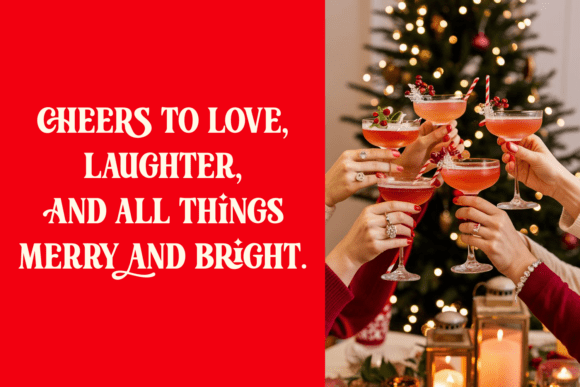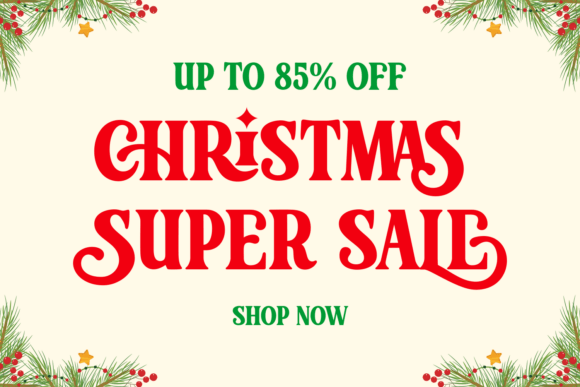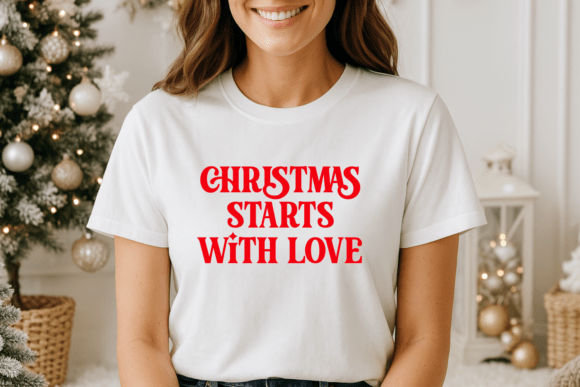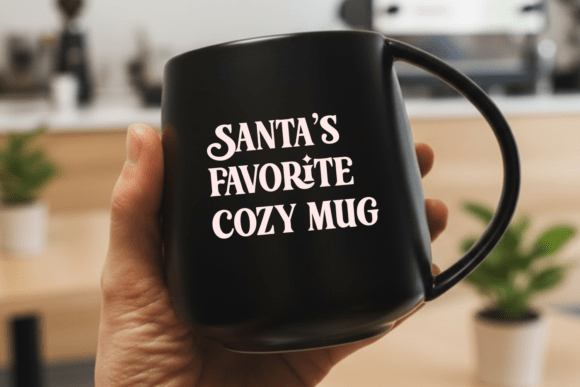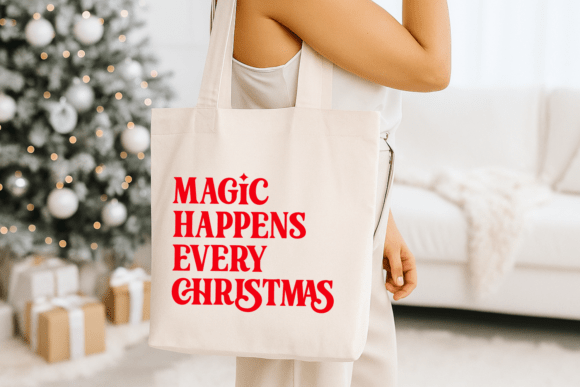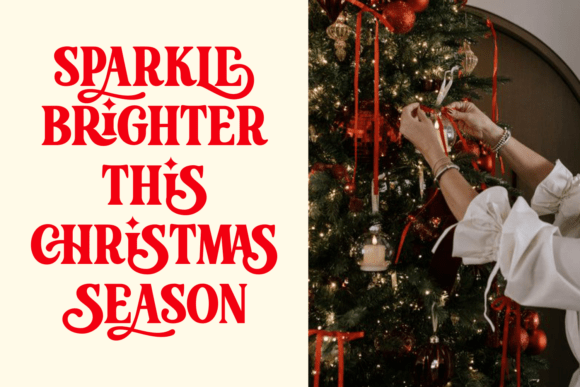
Introducing Christmas Royale Font: Elevate Your Holiday Designs with Elegance and Charm
Are you looking for the perfect font to add a touch of festive elegance to your holiday designs? Look no further than Christmas Royale, an exquisite serif display font that embodies the warmth, charm, and magic of the holiday season. Inspired by classic Christmas lettering, this font seamlessly blends bold retro curves with refined serif details, creating a timeless yet playful look that’s sure to captivate your audience.
A Font that Exudes Holiday Cheer
Christmas Royale is more than just a font – it’s an experience. Its flowing swashes and decorative letterforms add a luxurious seasonal flair, making it perfect for capturing the joyful spirit of the holidays. Whether you’re designing Christmas cards, invitations, branding materials, gift tags, signage, social media posts, or packaging, this font is sure to bring a touch of sophistication and coziness to your creations.
Key Features of Christmas Royale Font
• Elegant Serif Design: Christmas Royale boasts a refined serif design that exudes elegance and sophistication, perfect for creating high-end holiday designs.
• Bold Retro Curves: The font’s bold retro curves add a playful touch, making it ideal for designs that require a dash of nostalgia and whimsy.
• Flowing Swashes and Decorative Letterforms: The font’s flowing swashes and decorative letterforms add a luxurious seasonal flair, perfect for creating eye-catching designs.
Why Choose Christmas Royale Font?
With Christmas Royale, you can create designs that feel enchanting, joyful, and truly unforgettable. Its graceful character shapes and eye-catching style make it perfect for designers and crafters who want to add a touch of festive elegance to their creations. Whether you’re designing for personal or commercial use, this font is sure to help you create stunning holiday designs that leave a lasting impression.
Ideal for a Variety of Holiday Projects
Christmas Royale is an incredibly versatile font that can be used for a wide range of holiday projects, including:
• Christmas cards and invitations
• Branding and packaging designs
• Gift tags and gift wrapping
• Signage and display graphics
• Social media posts and digital graphics
Tips for Getting the Most Out of Christmas Royale Font
To make the most of Christmas Royale, be sure to experiment with different design elements, such as:
• Pairing the font with complementary design elements, such as festive illustrations or holiday-themed graphics.
• Using the font’s swashes and decorative letterforms to add a touch of elegance and sophistication.
• Experimenting with different color schemes and textures to create a unique and eye-catching design.